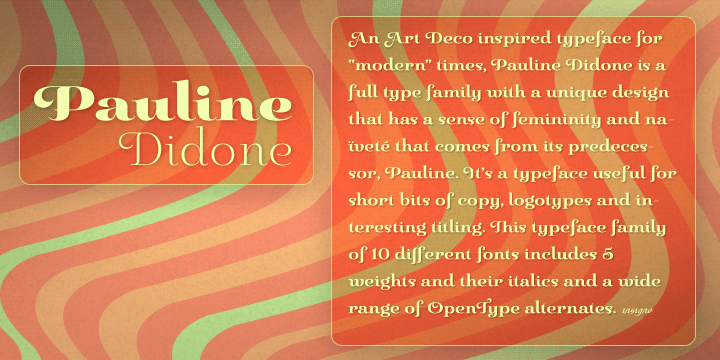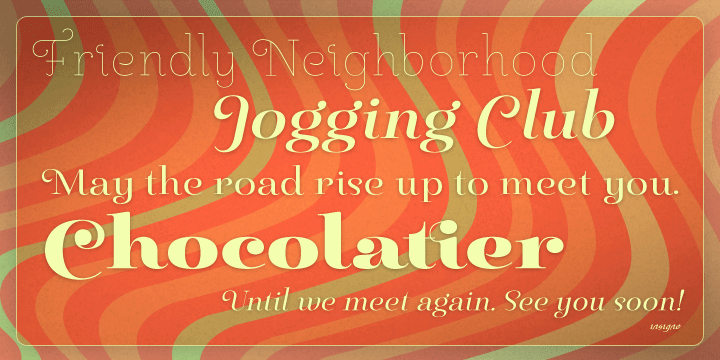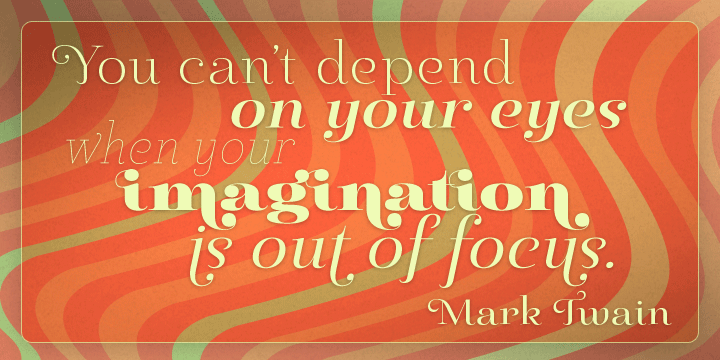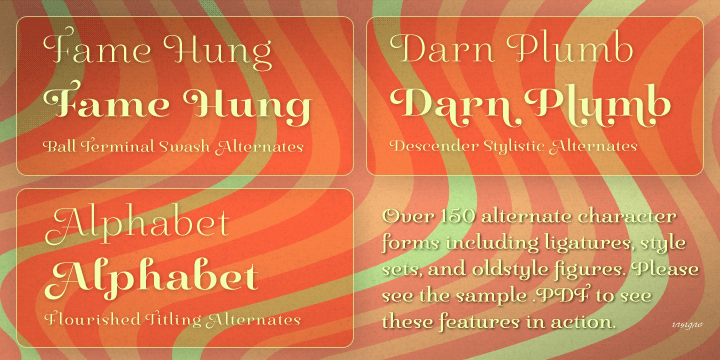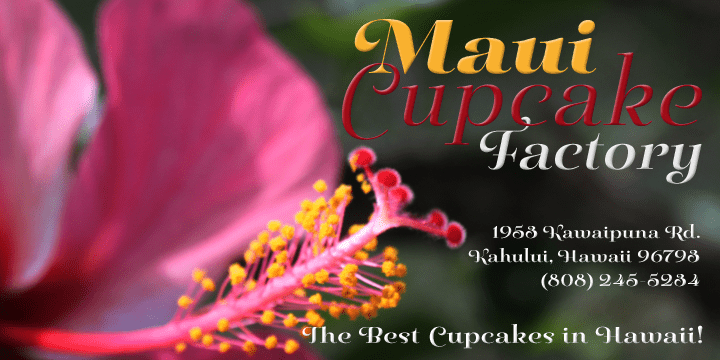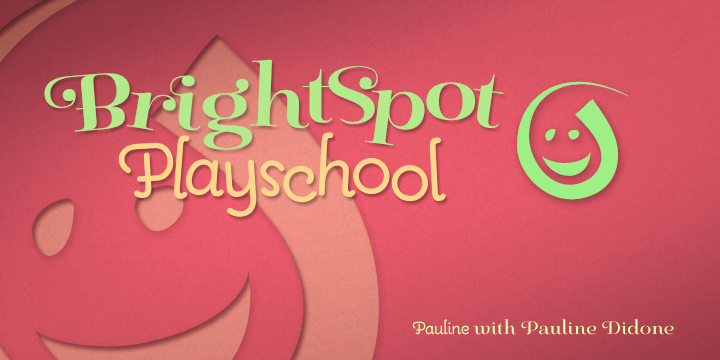
Pauline Didone
Font Family by Insigne
An Art Deco, script inspired typeface for ?modern? times, Pauline Didone is a full type family with a unique and flavorful design. It has a sense of femininity and na